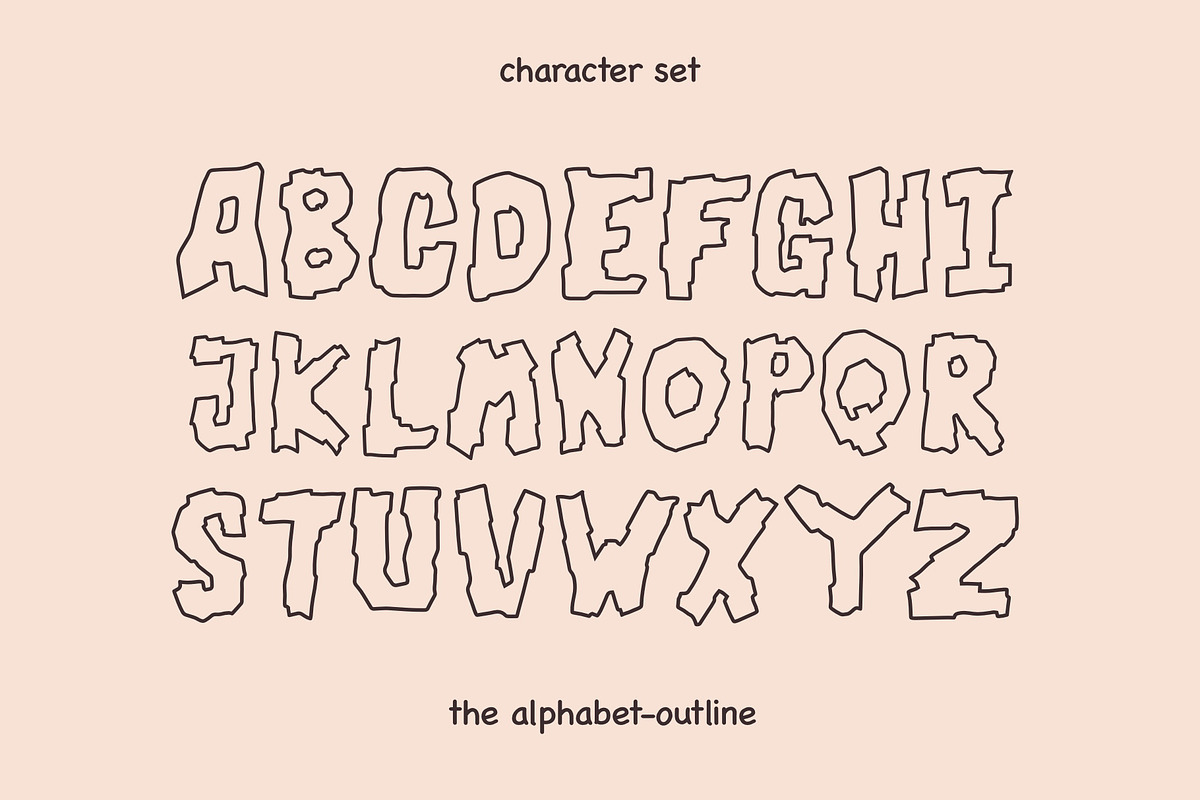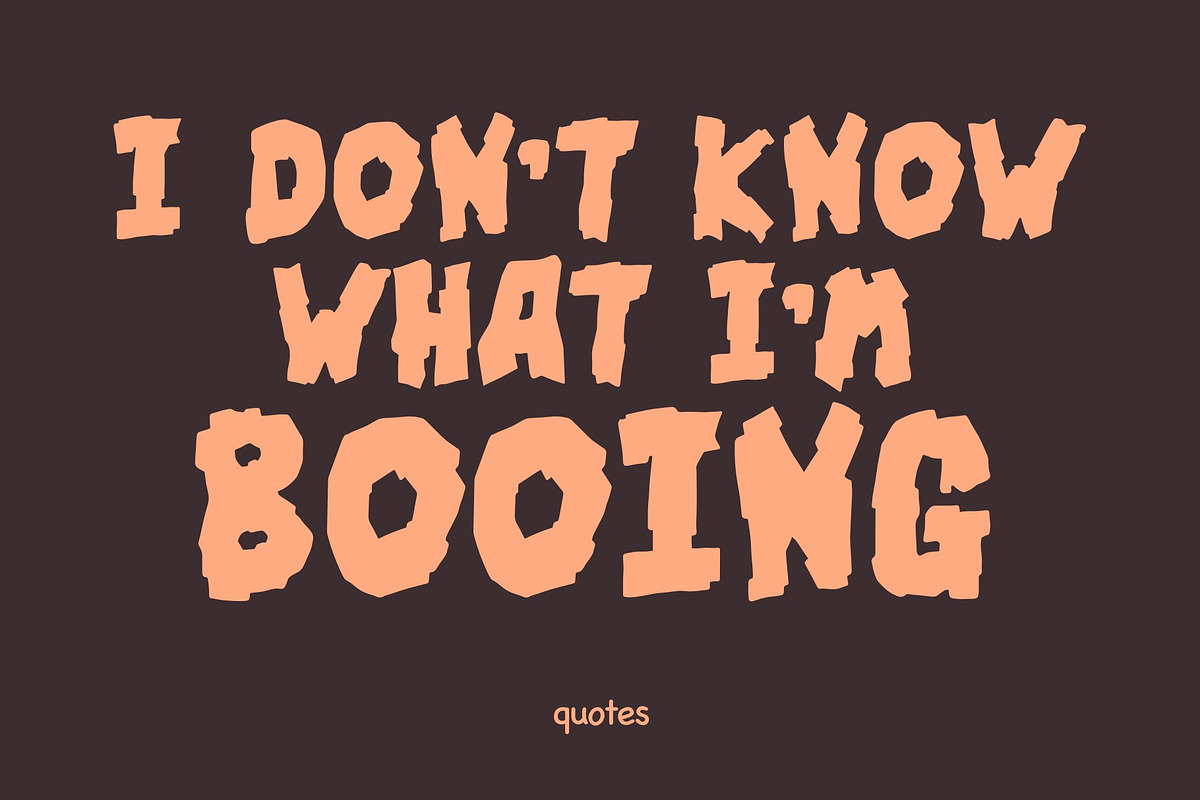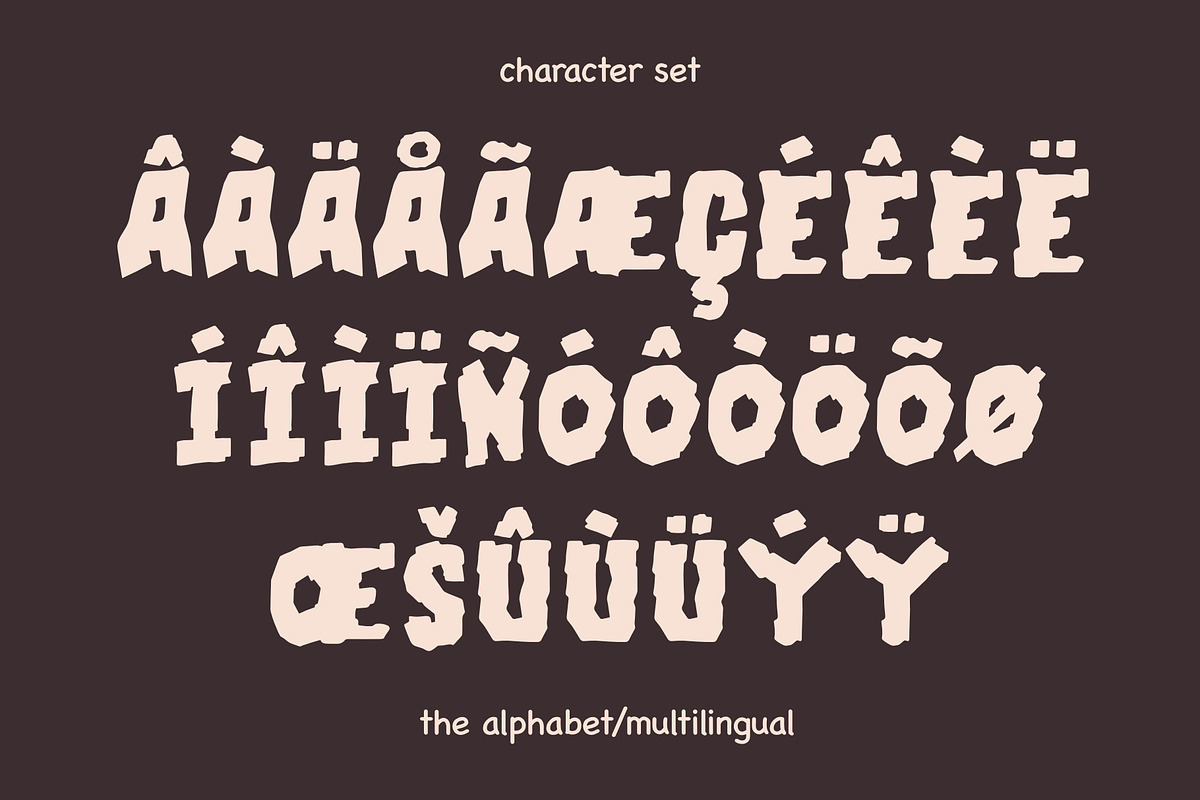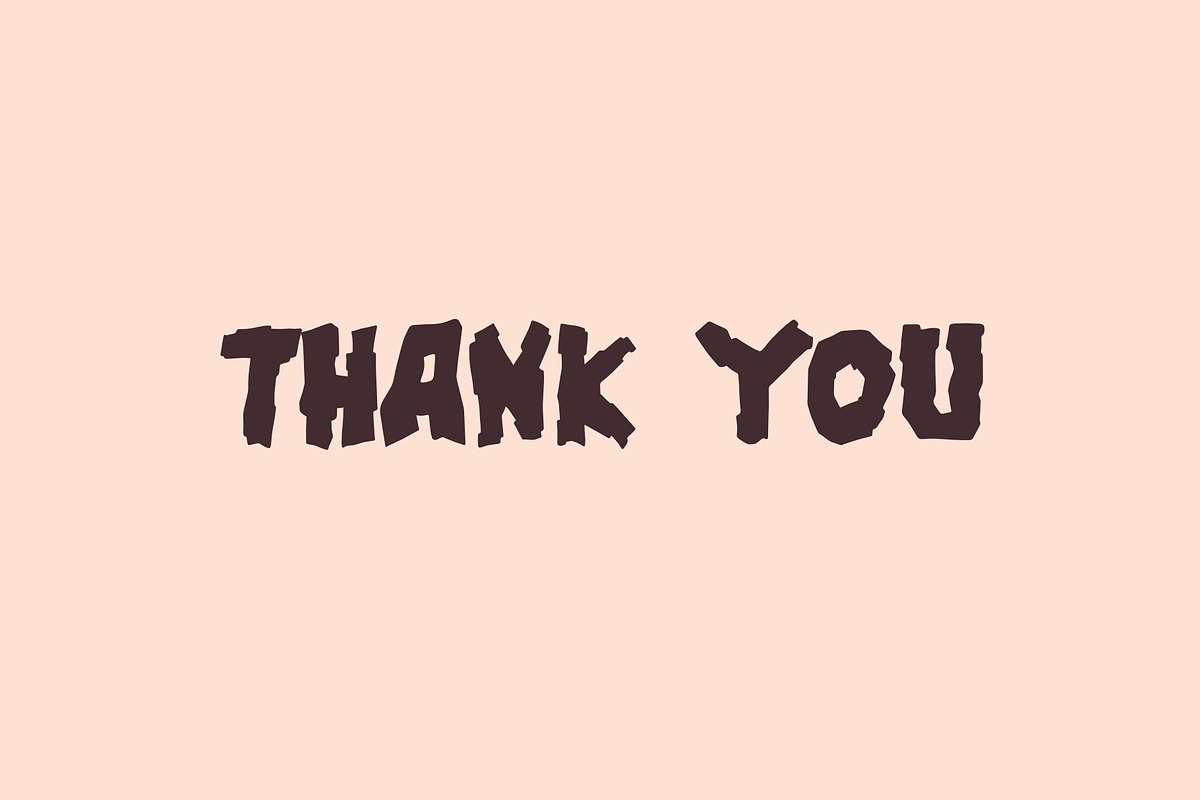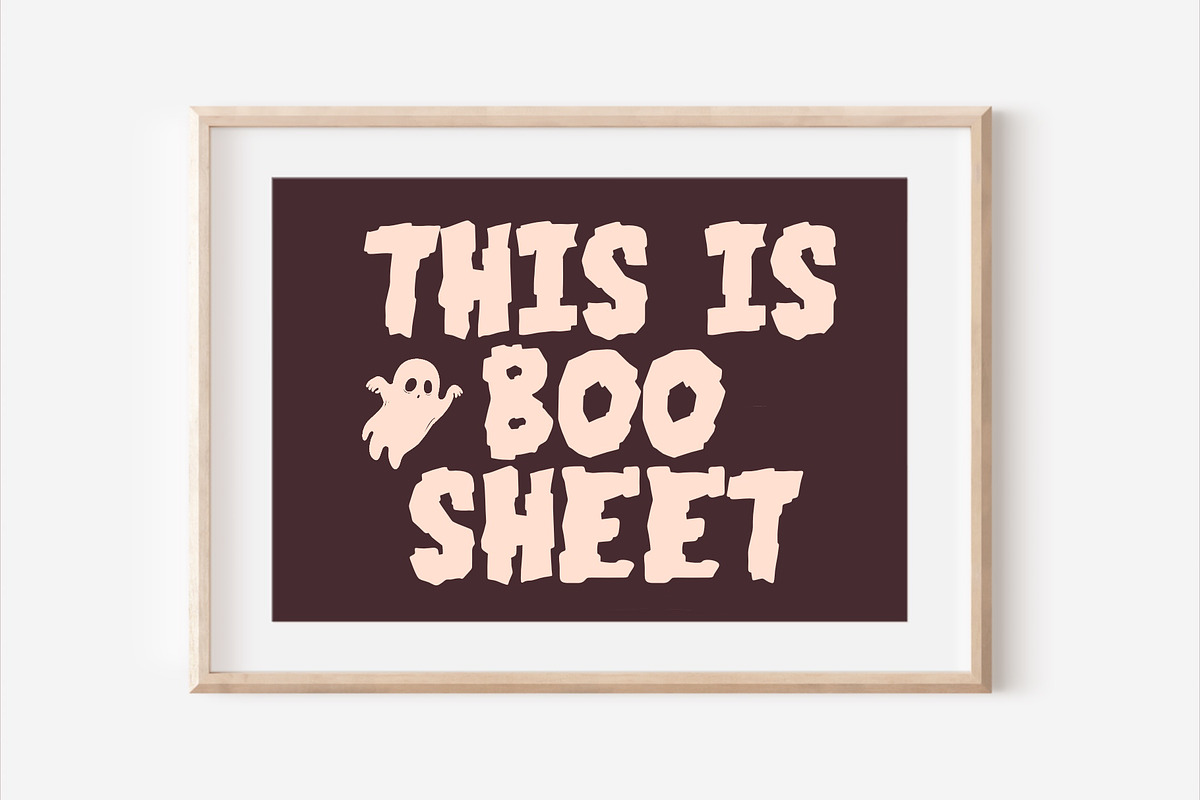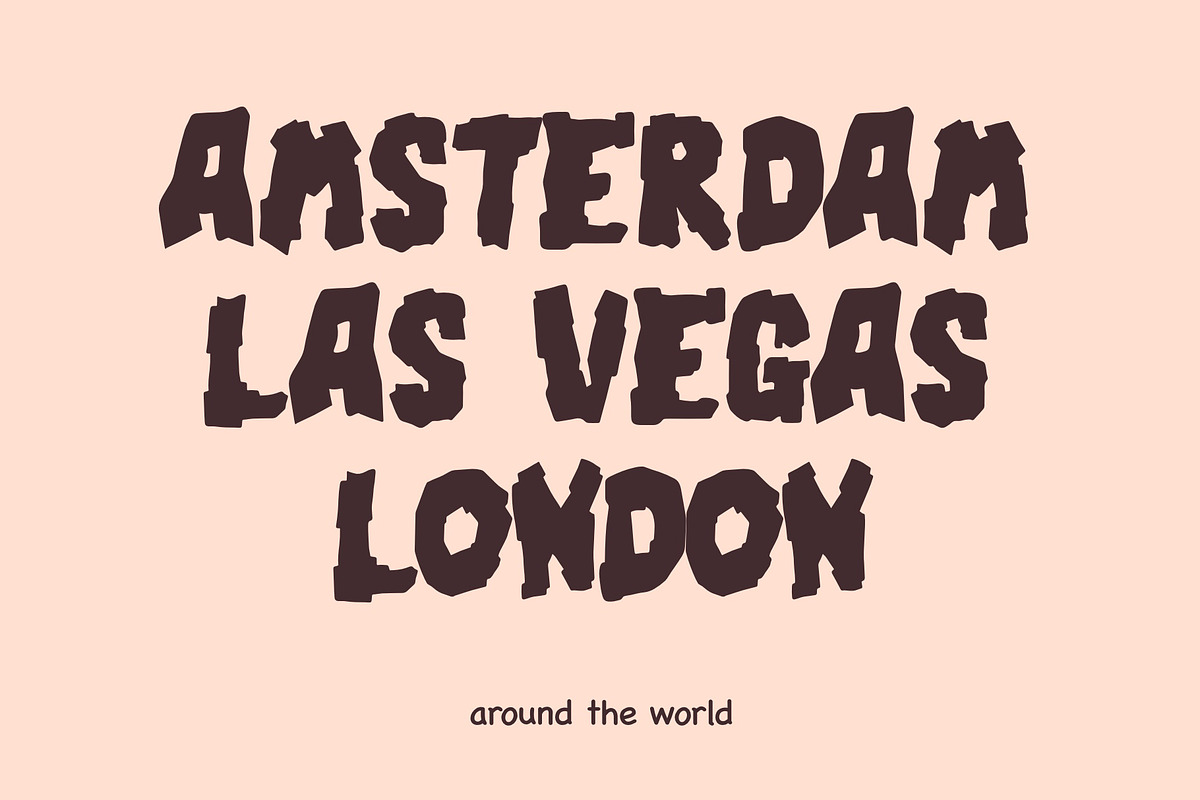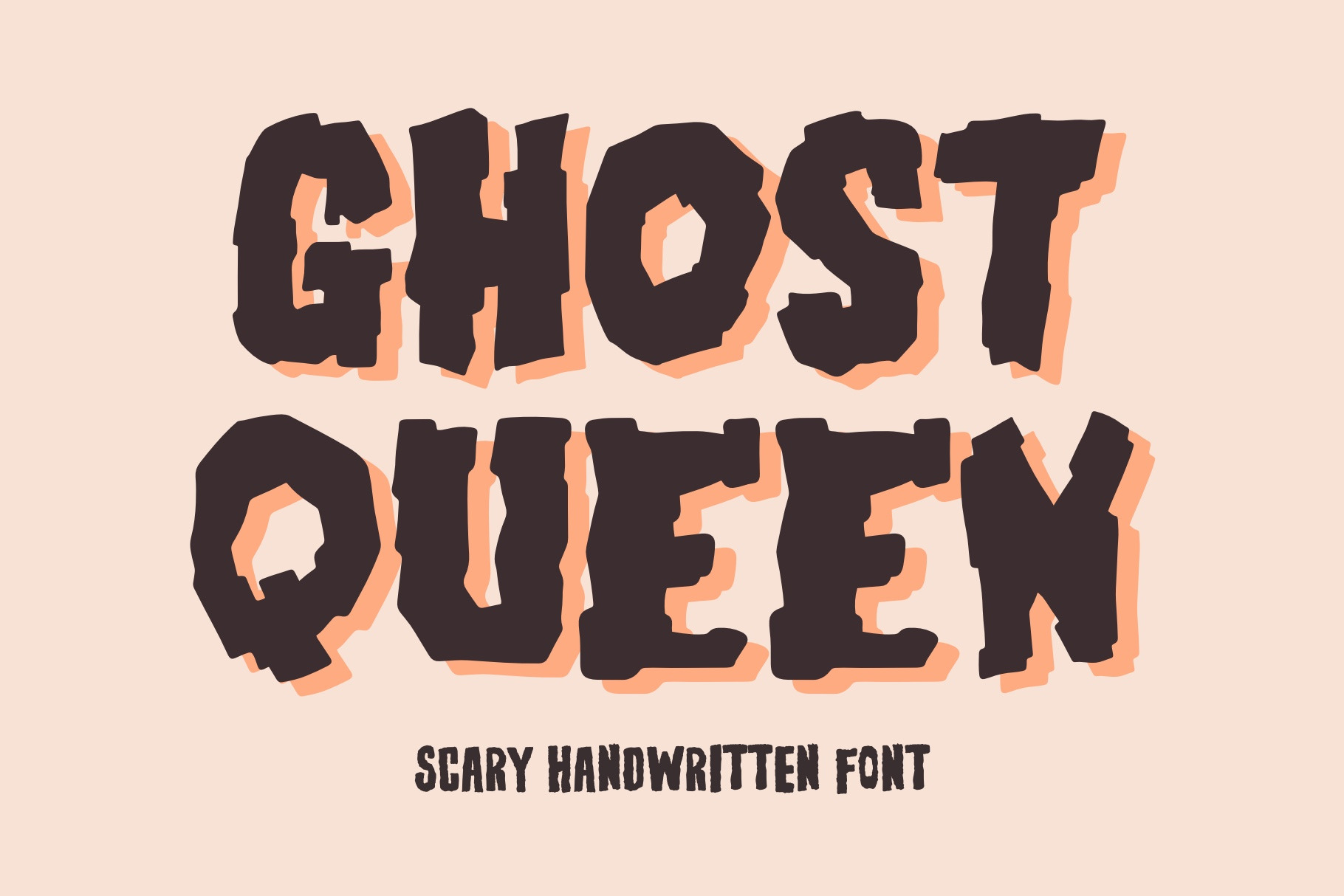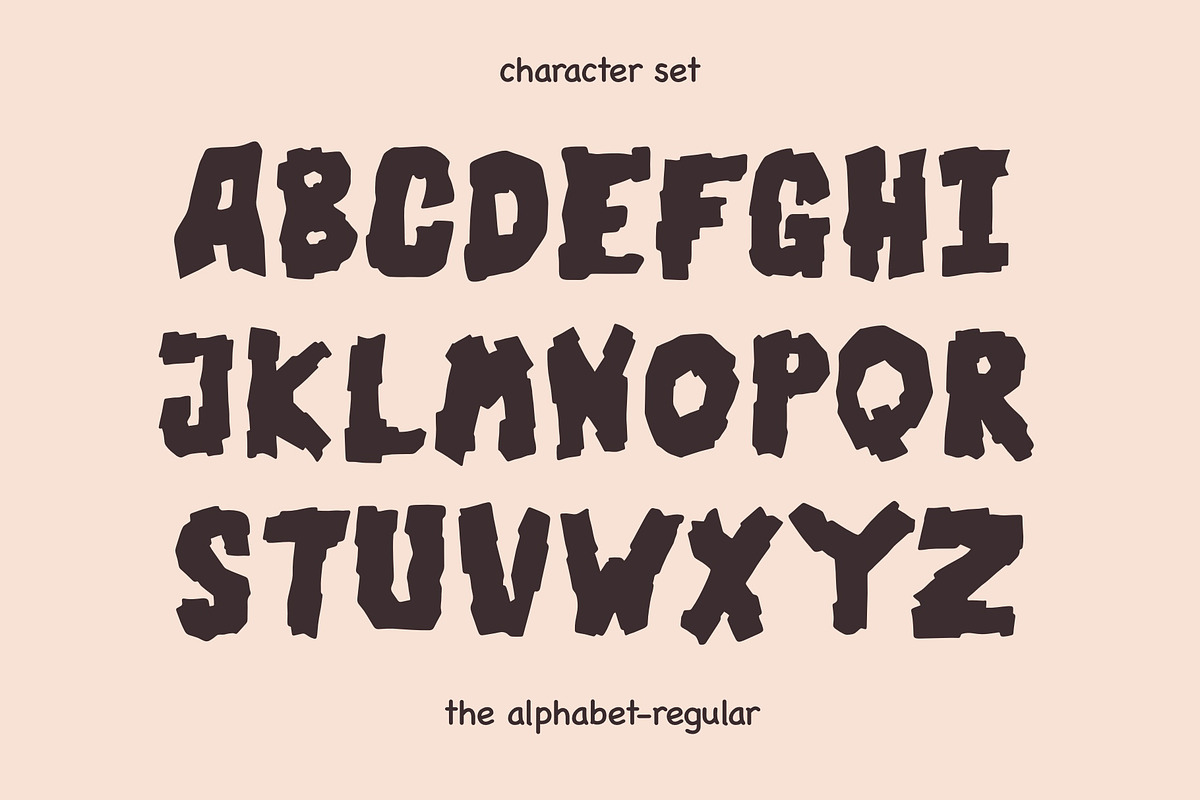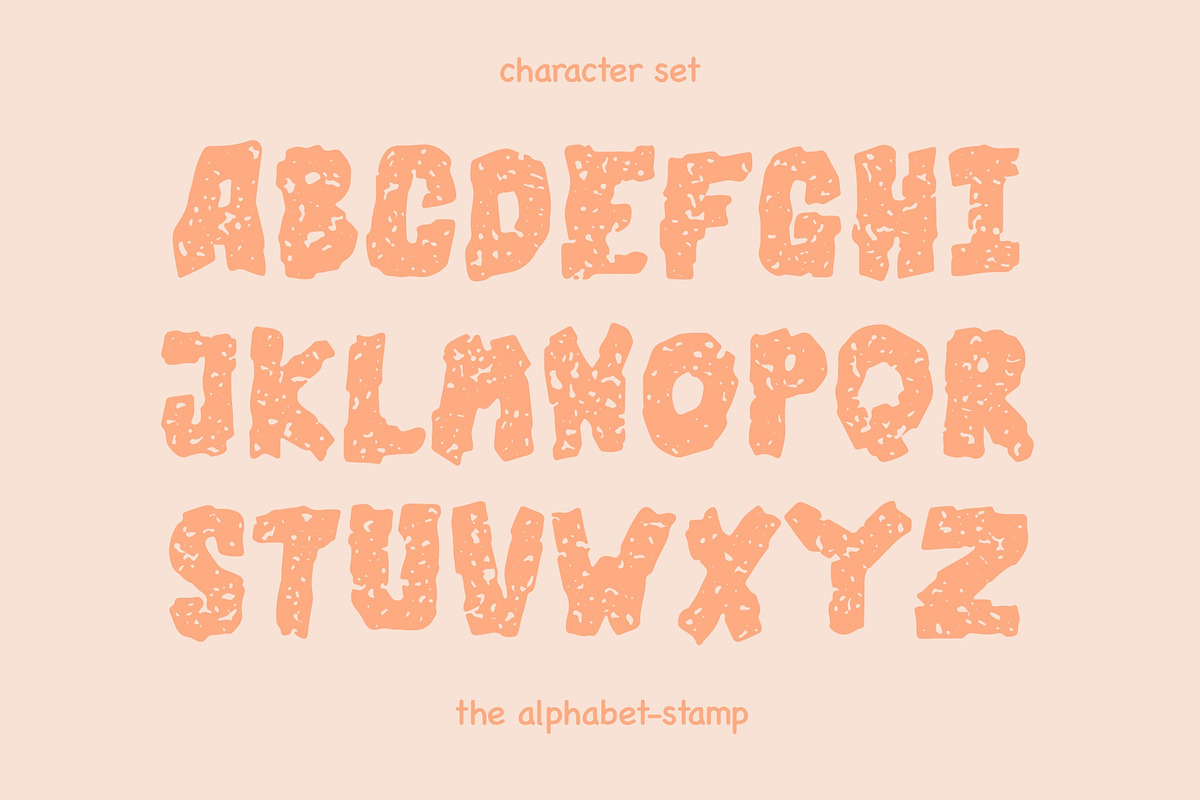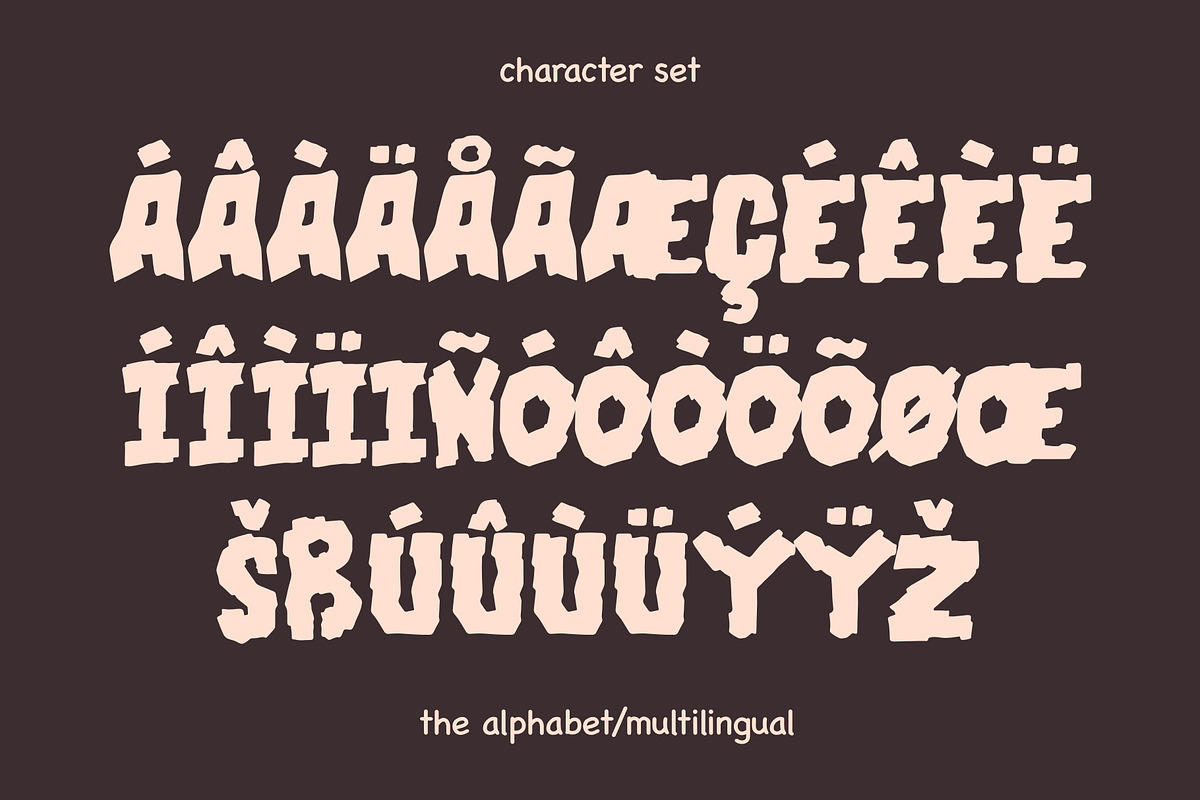
Ghost Queen Font - Horror Font
Ghost Queen is a captivating and spine-chilling font product that seamlessly blends the eerie essence of horror with the unique artistry of handwriting. This typeface available in SVG format, compatible with advanced tools such as Cricut and Glowforge, and for use in Procreate. The font's handcrafted style adds an authentic touch as if each letter was inscribed by spectral hands, making it ideal for creating a sense of suspense in various design applications.